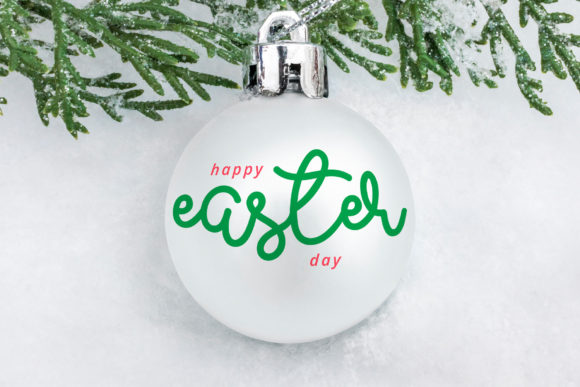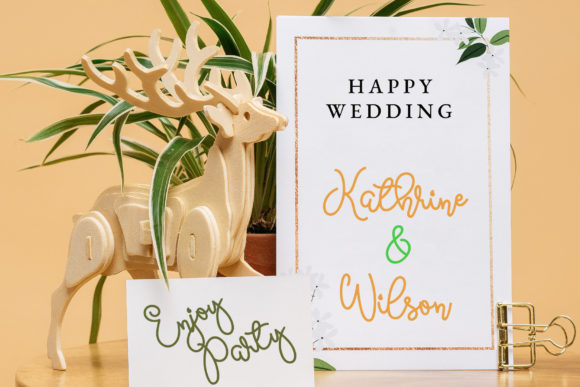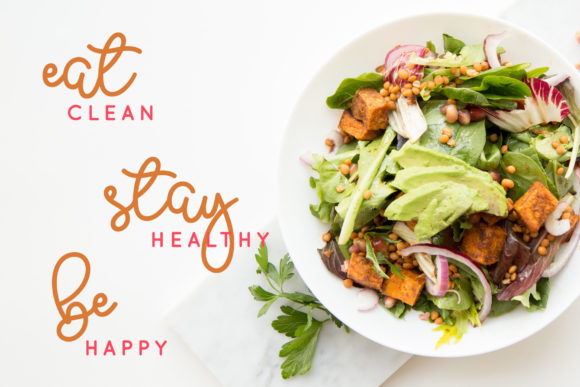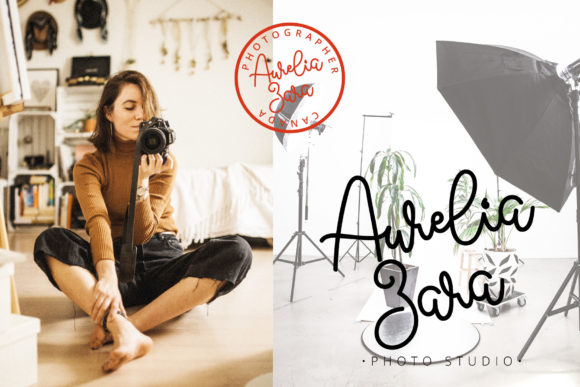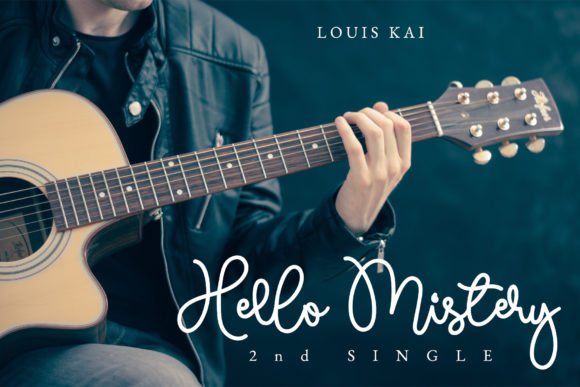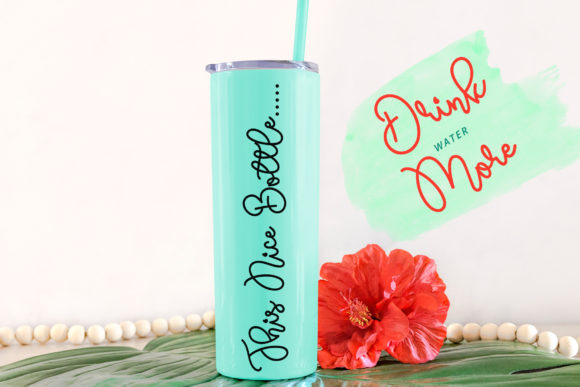
Introduction to Millesh Script Font Font
Fonts play a crucial role in design, and the Millesh Script Font font is a typeface that brings both character and versatility to any project. Whether you’re working on a branding project, a website, or a print design, the Millesh Script Font font offers a unique style that can elevate your work.
Millesh Script is a simple, cute, and sweet handwritten font.
It has a unique flow that makes any design look more quirky and original .
Key Features of Millesh Script Font Font
Why Choose Millesh Script Font Font?
The Millesh Script Font font is more than just a typeface – it’s a design tool that helps you communicate your message with style and clarity. Its unique character set and versatile design make it suitable for a wide range of applications, from elegant invitations to bold headlines.
With its carefully crafted letterforms and balanced proportions, the Millesh Script Font font ensures readability and visual appeal across all mediums.
What makes Millesh Script Font font special?
The Millesh Script Font font stands out with its unique design, exceptional readability, and versatility across various design applications.